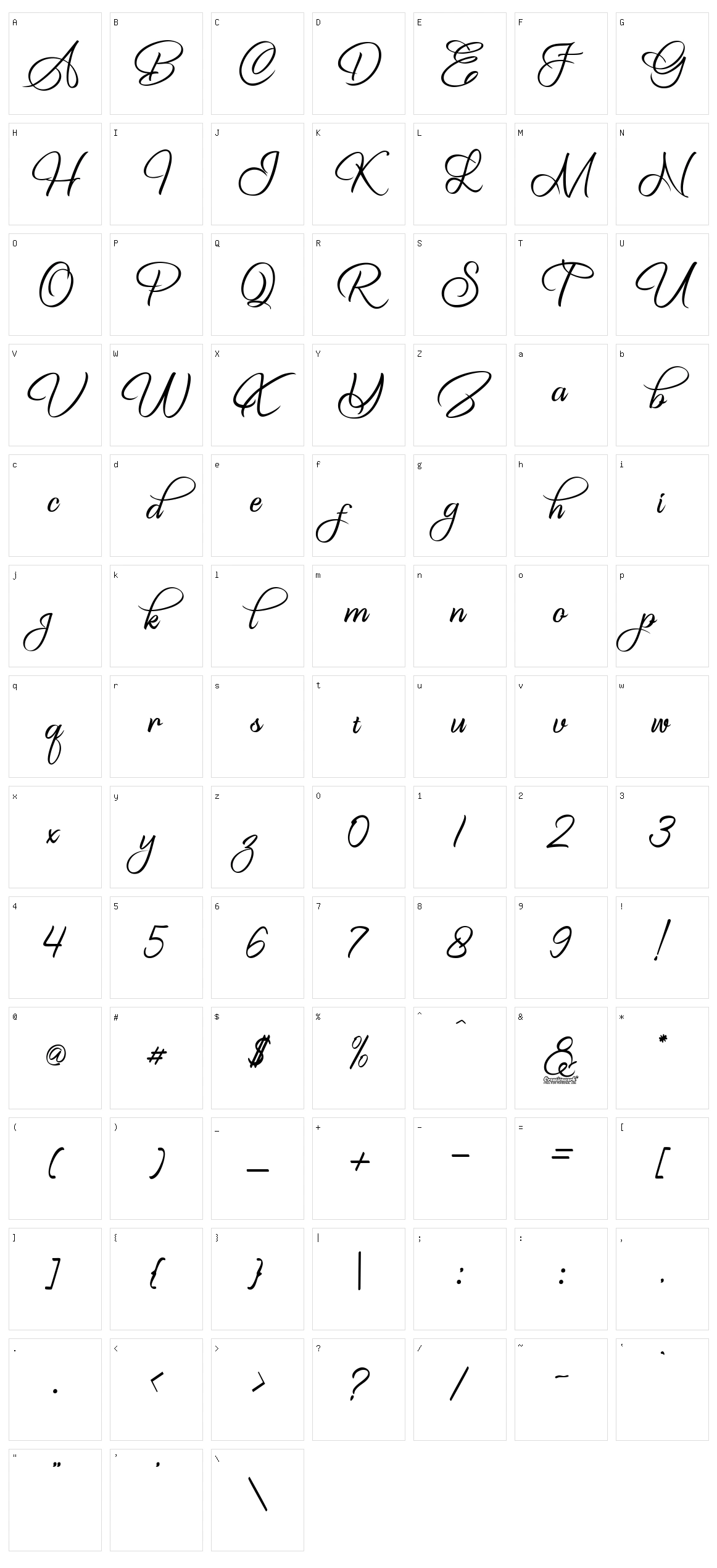
The free font The King Of Romance is carefully designed by Creativework69 Studio, showcasing a thoughtful balance of creativity and usability and falls under the Script font style. When you download the ZIP file, it contains only 73.61 KB of font files, making it lightweight and quick to download. Please review the license details below to understand permitted usage and distribution rights. If license information is not available, we recommend using this font for personal projects only or contacting the author directly for commercial usage permissions.